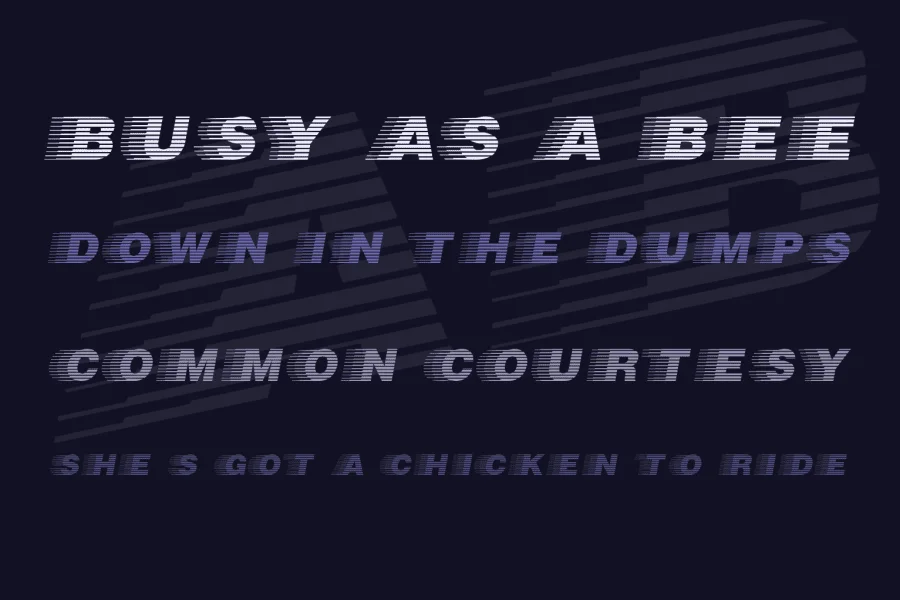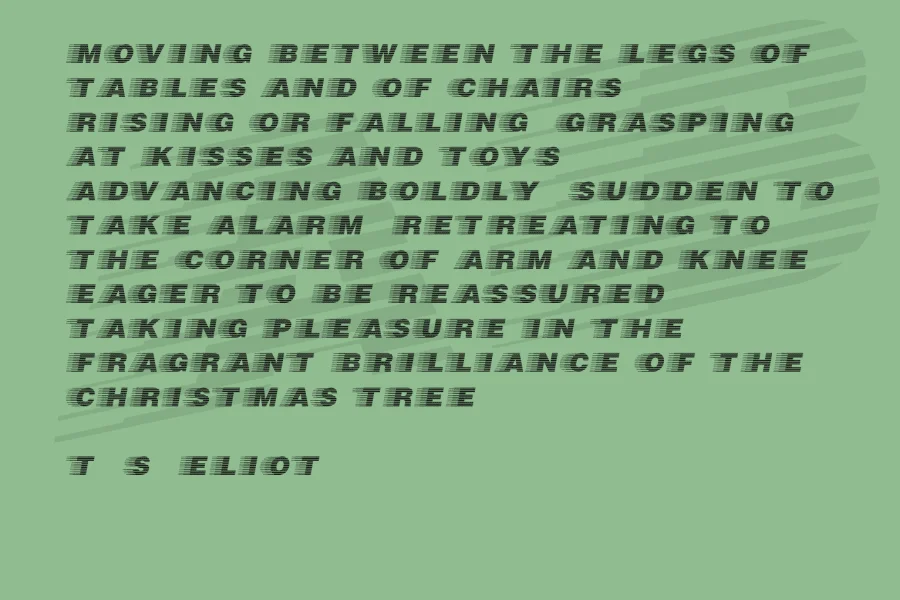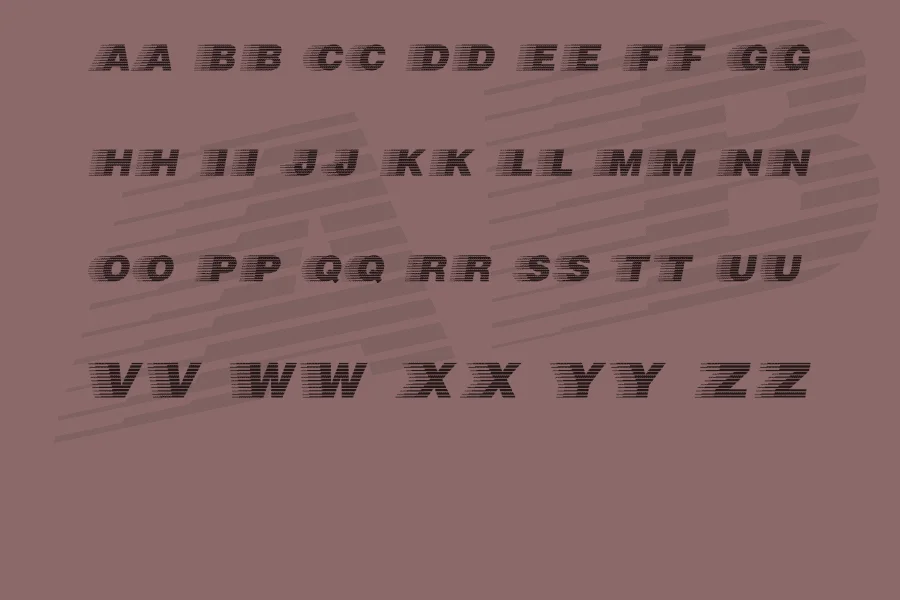
The Speedway font is a display font that resembles the letter "S" in the Speedway logo. I created this font using Inkscape and FontLab Studio. While the Speedway font contains alphabetic characters, this font is not suitable for use in text or other applications which suggest small font sizes; however, its recommended use is for stickers, signs and logos. This font is in the public domain; please read the terms of use at http://jlhfonts.blogspot.com/